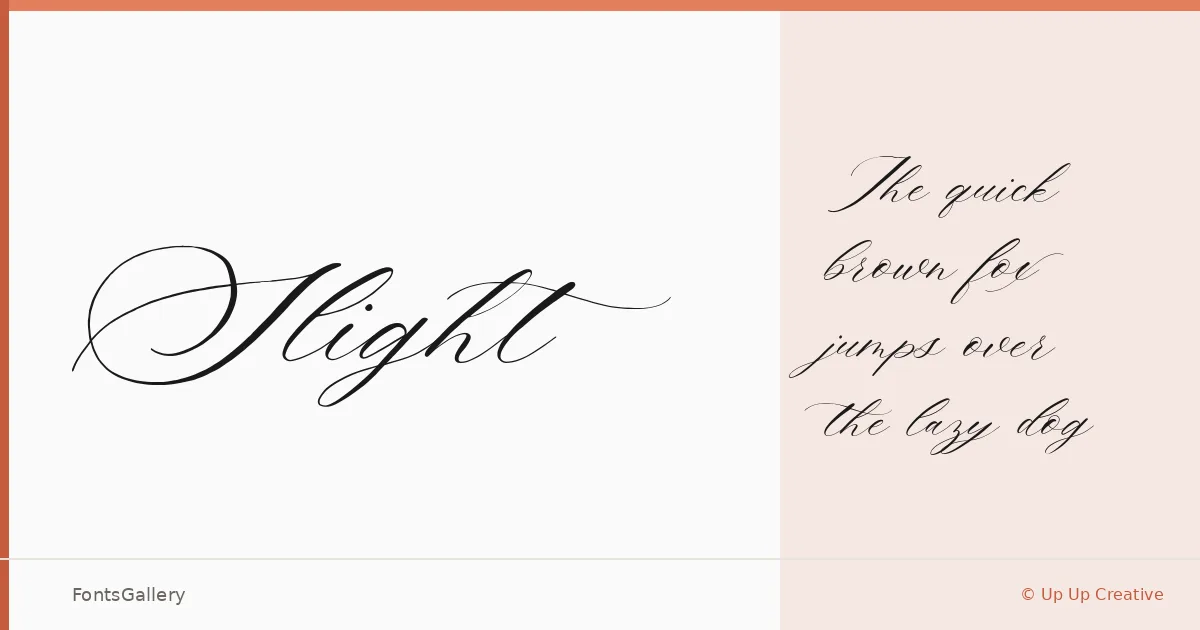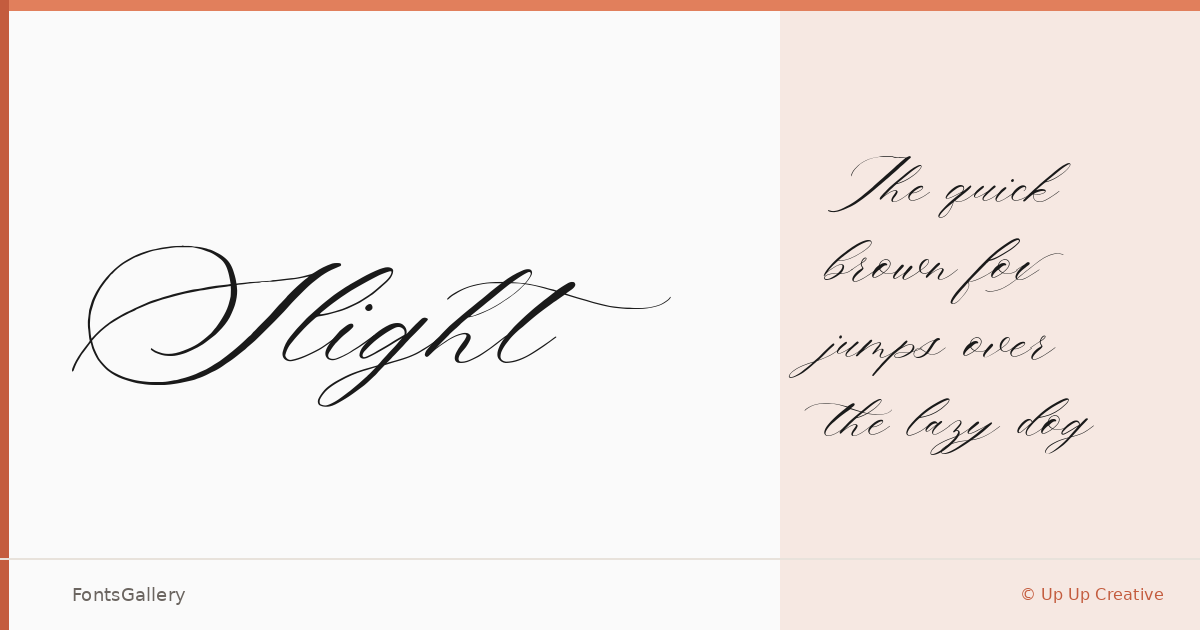
About Slight Font
There is a quiet confidence in the way this script moves — the strokes taper with restraint, and the letterforms lean just enough to feel handwritten without losing their composure. Slight is the work of Up Up Creative, and it arrives as a single Regular weight in TTF format, clean and unhurried in its execution.
Classic and romantic in spirit, the script carries a luxury sensibility that feels at home on high-end stationery and ceremony pieces. The forms are elegant rather than showy — connections between letters stay smooth, and the overall line has the kind of refinement you associate with hand-lettered occasion work. Latin script is supported throughout.
It earns its keep on wedding invitations, greeting cards, certificates, and logo lockups where a touch of romance is called for. The contrast in texture works well when paired against the rational geometry of Helvetica or Asap, the editorial warmth of Canela or ABC Arizona, or the clean humanist structure of Anglecia Pro.